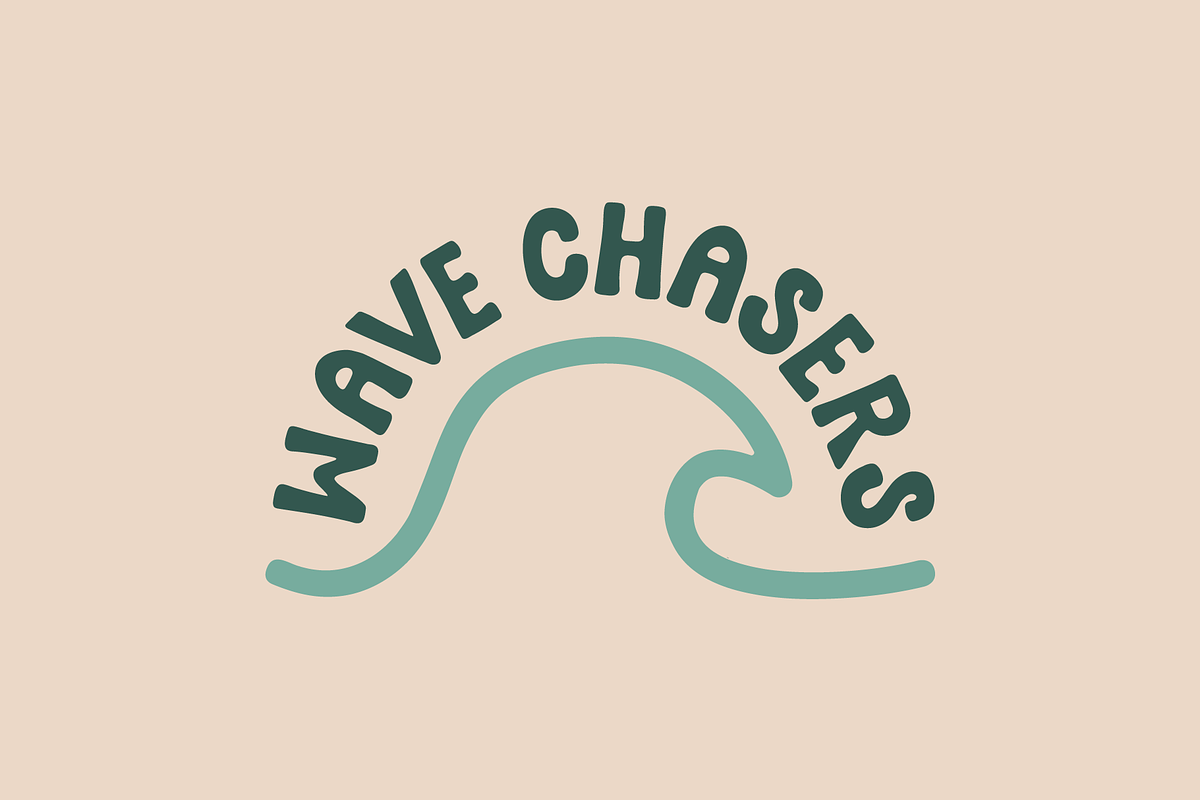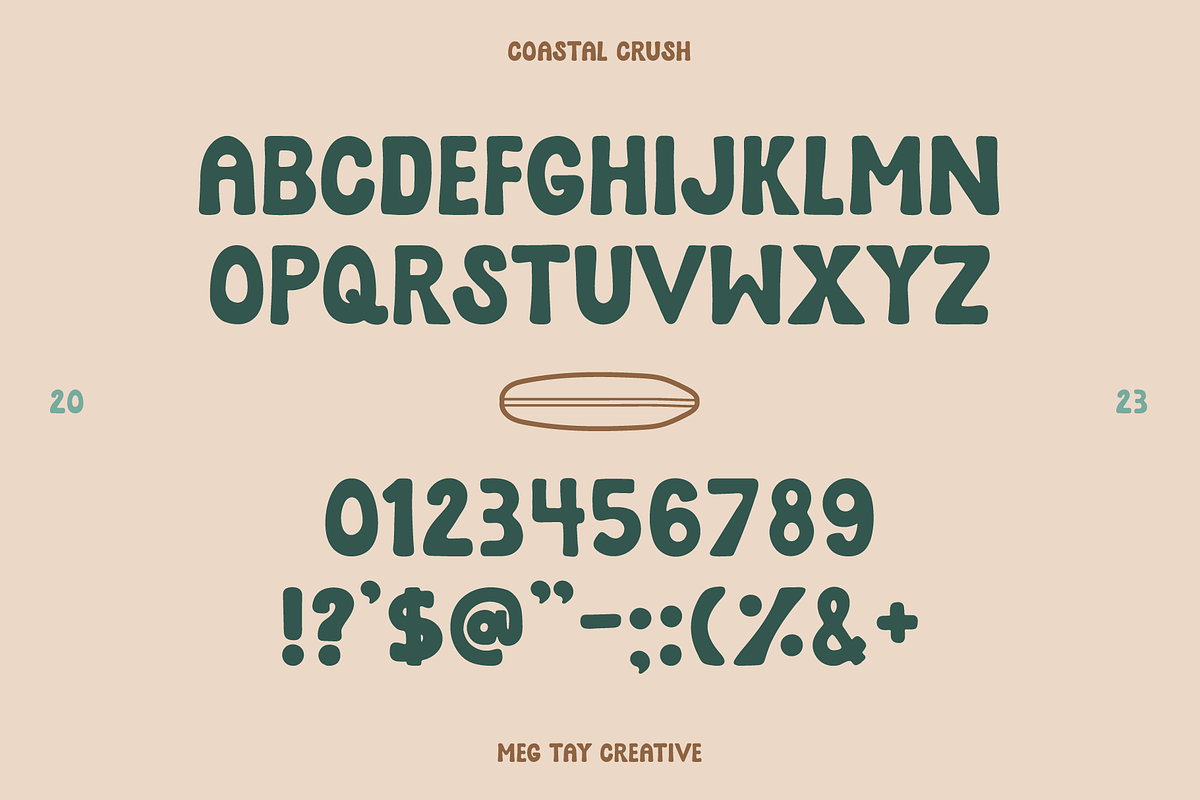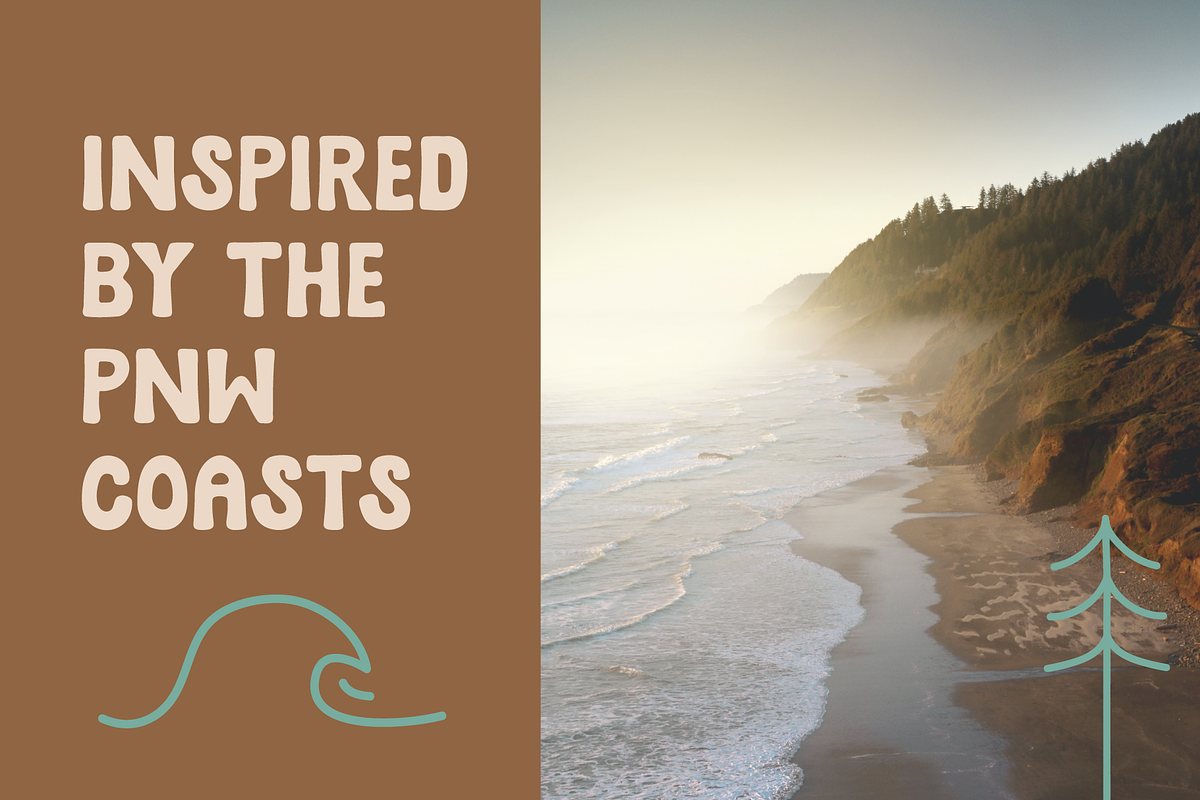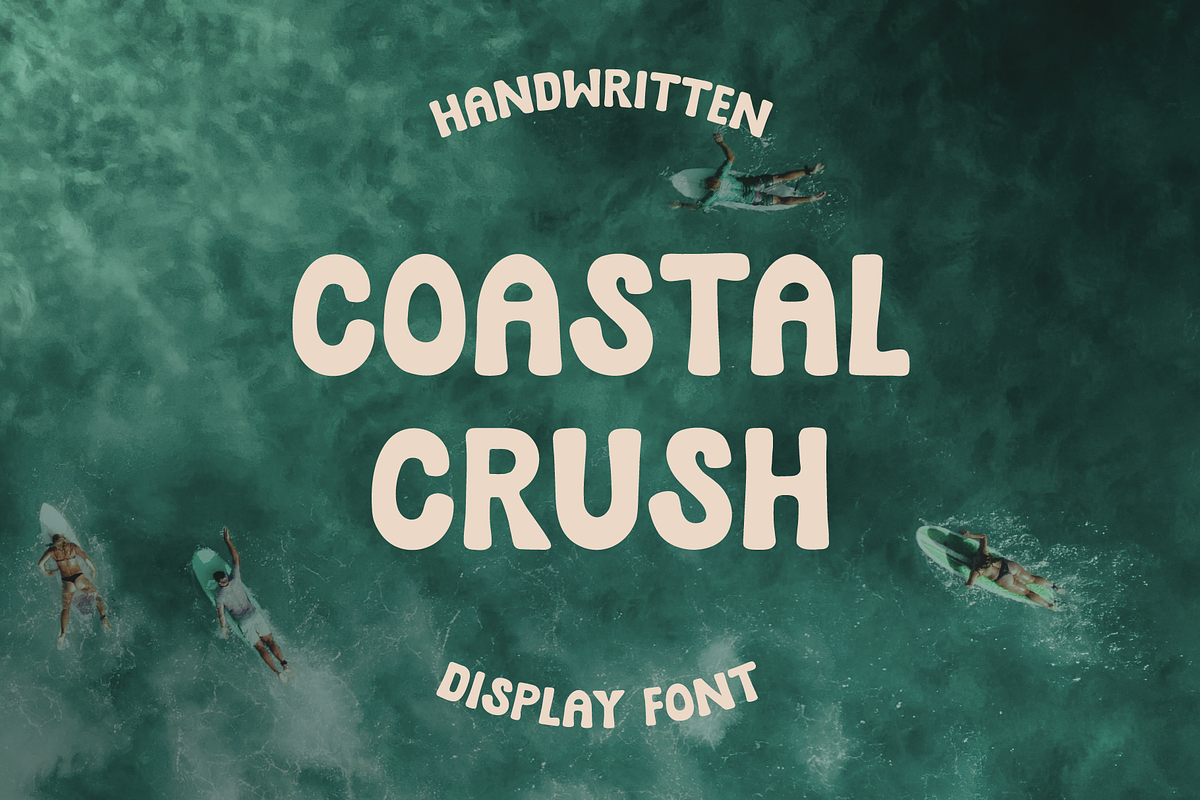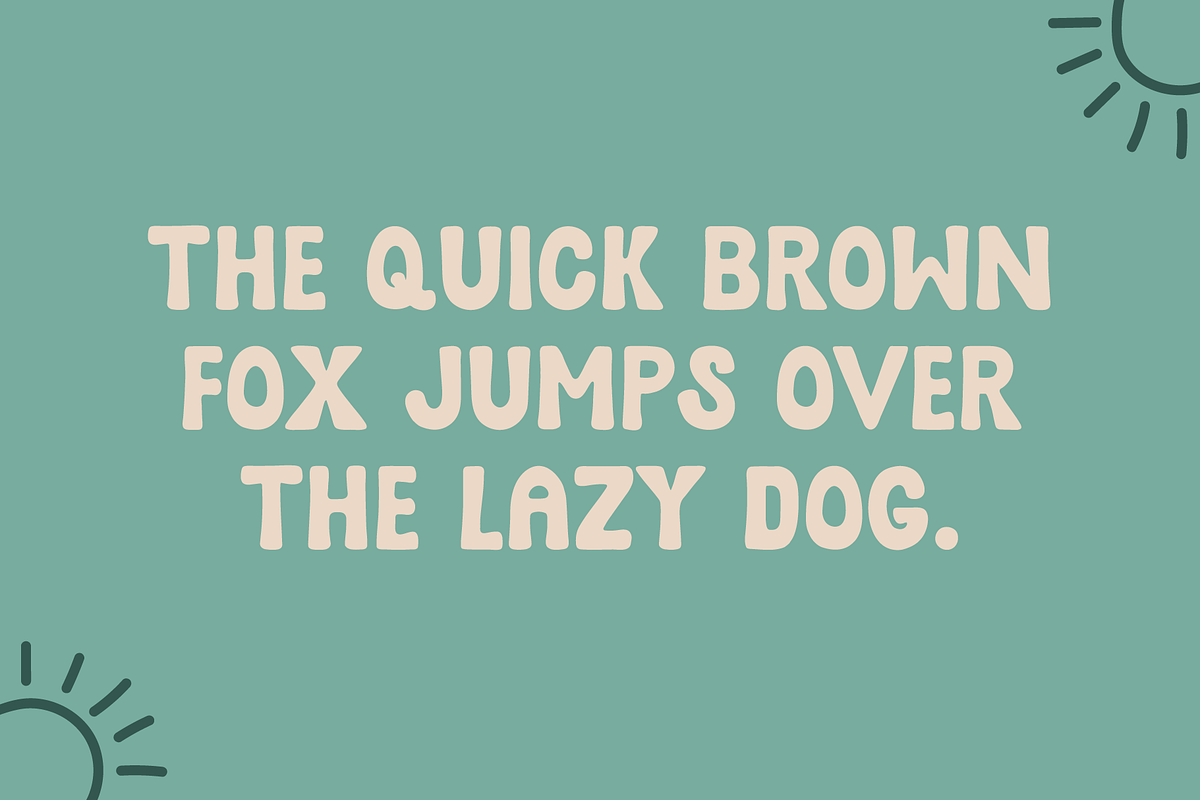
COASTAL CRUSH by Meg Tay Creative
Coastal Crush is a hand lettered sans serif display font that's playful, chunky, and uppercase only. Coastal Crush is perfect for your next design project and is ideal for logos and title texts with a playful and coastal vibe.